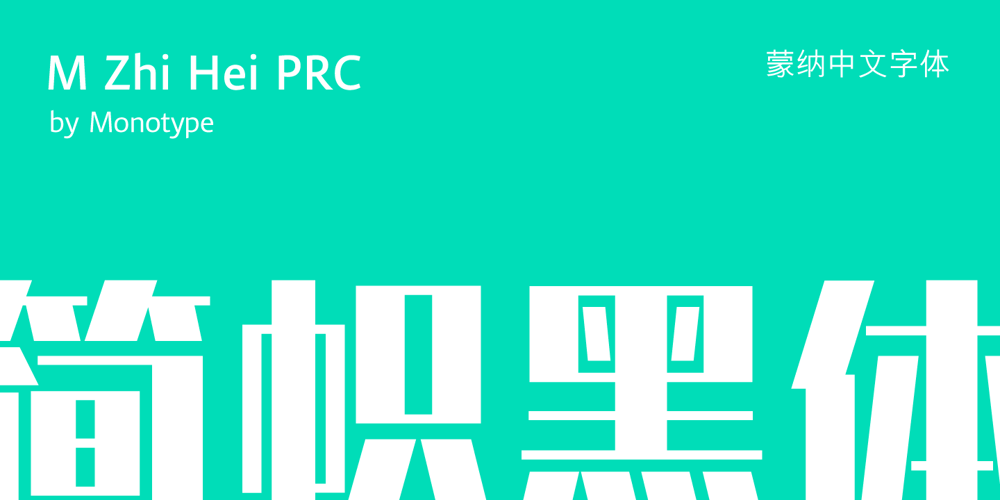
M Zhi Hei PRC
M Zhi Hei PRC font
M Zhi Hei PRC Font Family was designed by Kenneth Kwok and published by Monotype HK. M Zhi Hei PRC contains 1 styles and family package options. M Zhi Hei’s design concept comes from M Stiff Hei , where horizontal and vertical strokes (橫、豎) are direct, dots (點) are short but forceful, downstrokes(撇、捺) are straight and sharp – everything bold and straightforward. One big difference between M Zhi Hei and M Stiff Hei, is the similar thickness of horizontal strokes (橫) across all font styles, so that there would be a strong contrast formed by the thin horizontal and thick vertical strokes (橫、豎) in the bold face. Still, remains bright, neat and beautifully crafted, it is a multi-purpose typeface that convince audiences and cater for different needs.